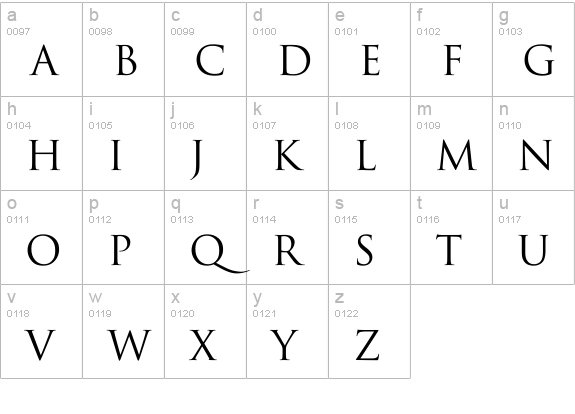
Trajan-Normal Font Details
Trajan-Normal is the standard, neutral variant in the Trajan typeface family \xE2\x80\x94 well suited to general body text, paragraphs, and standard typographic work.
Trajan-Normal is a timeless and elegant font that effortlessly captures the essence of classic Roman letterforms. With its clean lines and refined curves, this font exudes a sense of sophistication and a touch of antiquity. Its strong and sturdy strokes evoke a sense of power and authority, making it ideal for projects that demand a bold and commanding presence. This font is perfect for a wide range of applications, including headlines, logos, posters, and invitations. Its versatility allows it to seamlessly adapt to both modern and traditional designs, making it a go-to choice for designers seeking a versatile and reliable font. And the best part? Trajan-Normal is available for free! You can easily download this exceptional font at FontsMarket.com, where you'll find a vast collection of high-quality fonts to suit any design project. Embrace the timeless beauty of Trajan-Normal and elevate your designs to new heights.